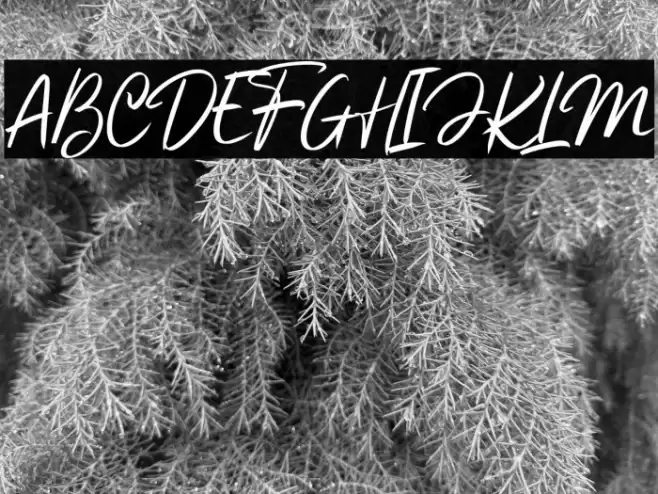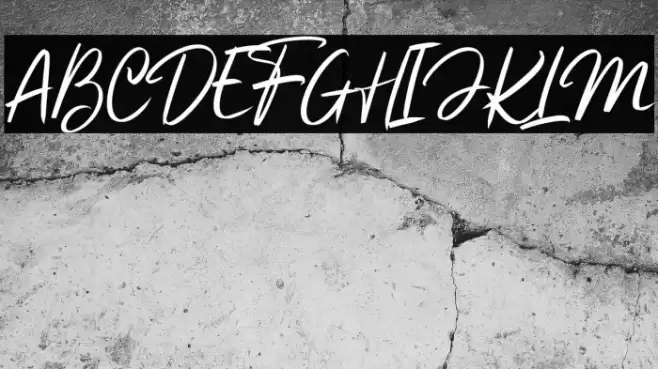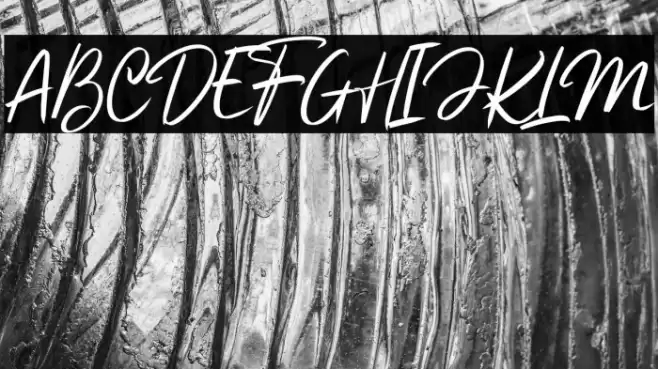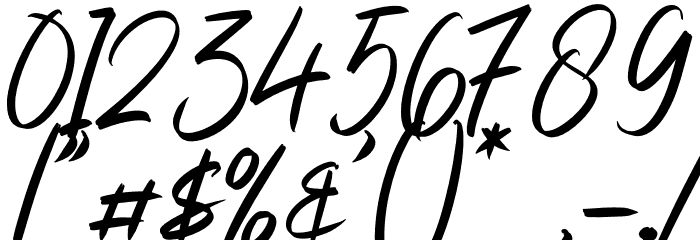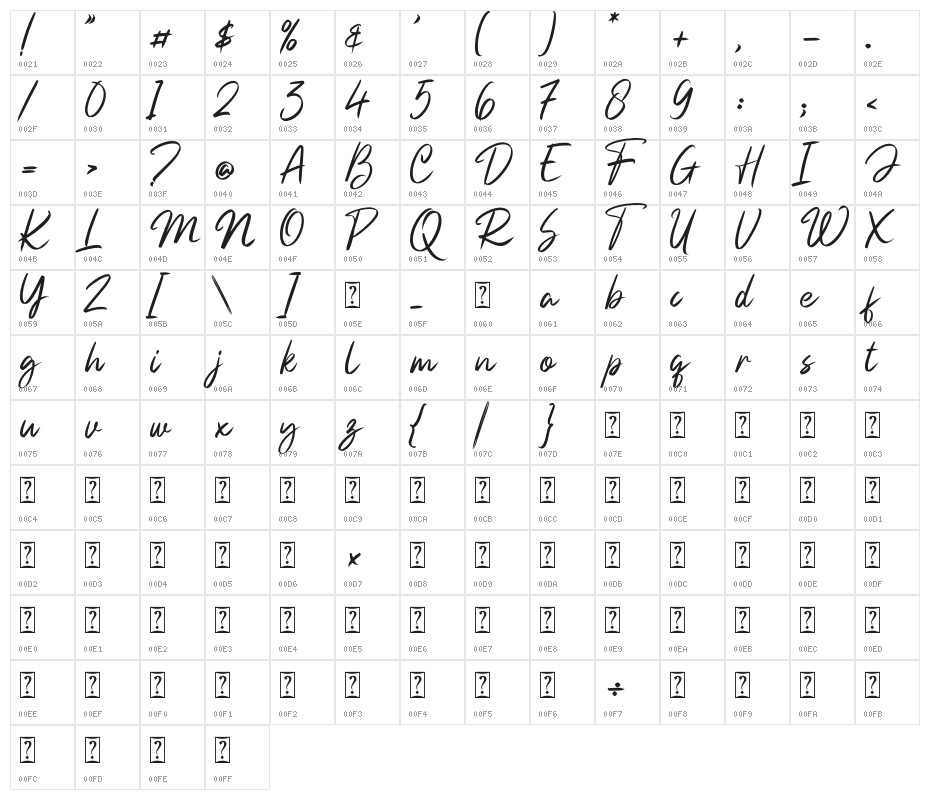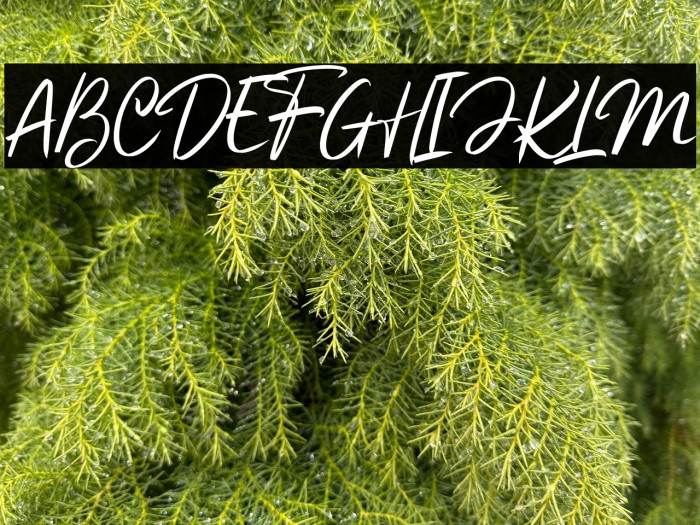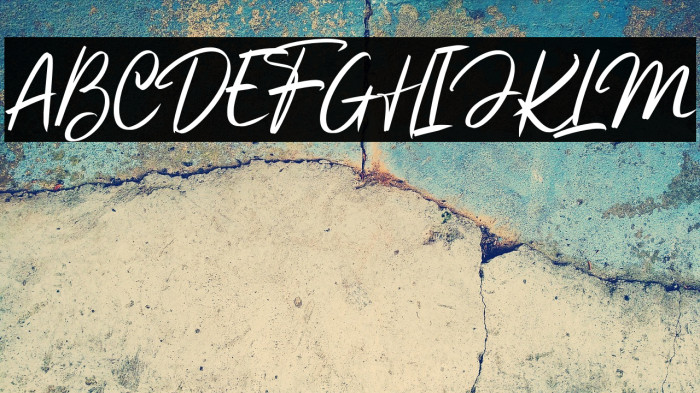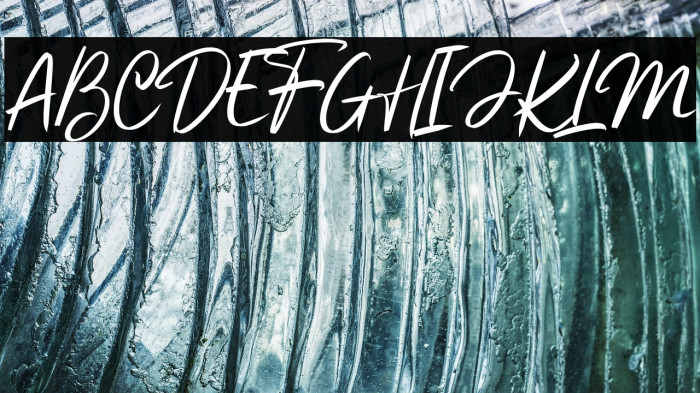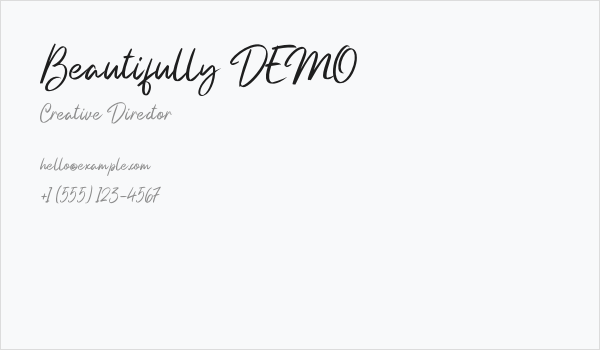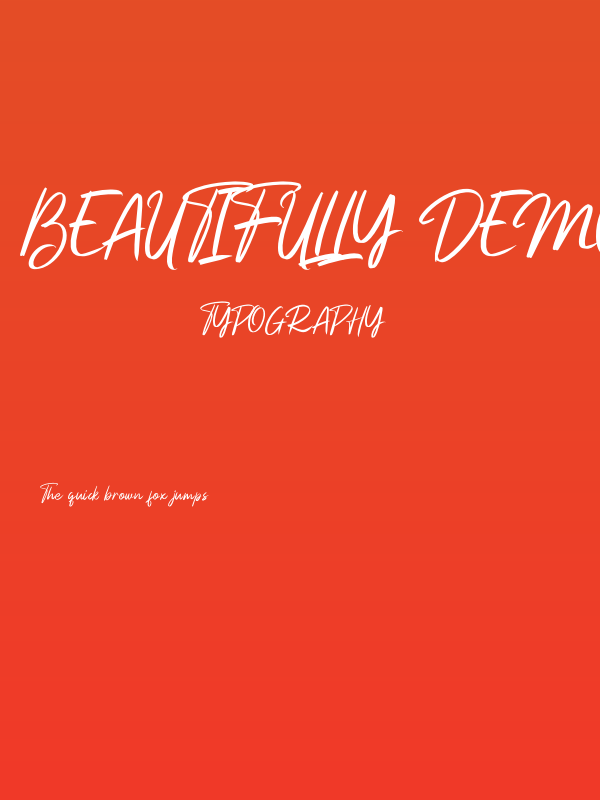
Beautifully DEMO Font
Beautifully DEMO Description
This font exudes a lively and dynamic energy, characterized by its fluid, cursive script style. The letters are elegantly connected, creating a seamless flow that mimics natural handwriting. Each character is crafted with a slight slant, enhancing the sense of movement and grace. The strokes vary in thickness, adding a touch of sophistication and visual interest. This font is perfect for projects that require a personal, human touch, such as invitations, greeting cards, or branding materials that aim to convey warmth and approachability.
A lively, cursive script font with fluid, connected letters and varying stroke thickness from Uncategorized fonts.
- Font: Beautifully DEMO
- Proposed Projects: Ideal for invitations, greeting cards, personal branding, and any design needing a handwritten touch.
- Use Case: Logos, Headlines, Invitations